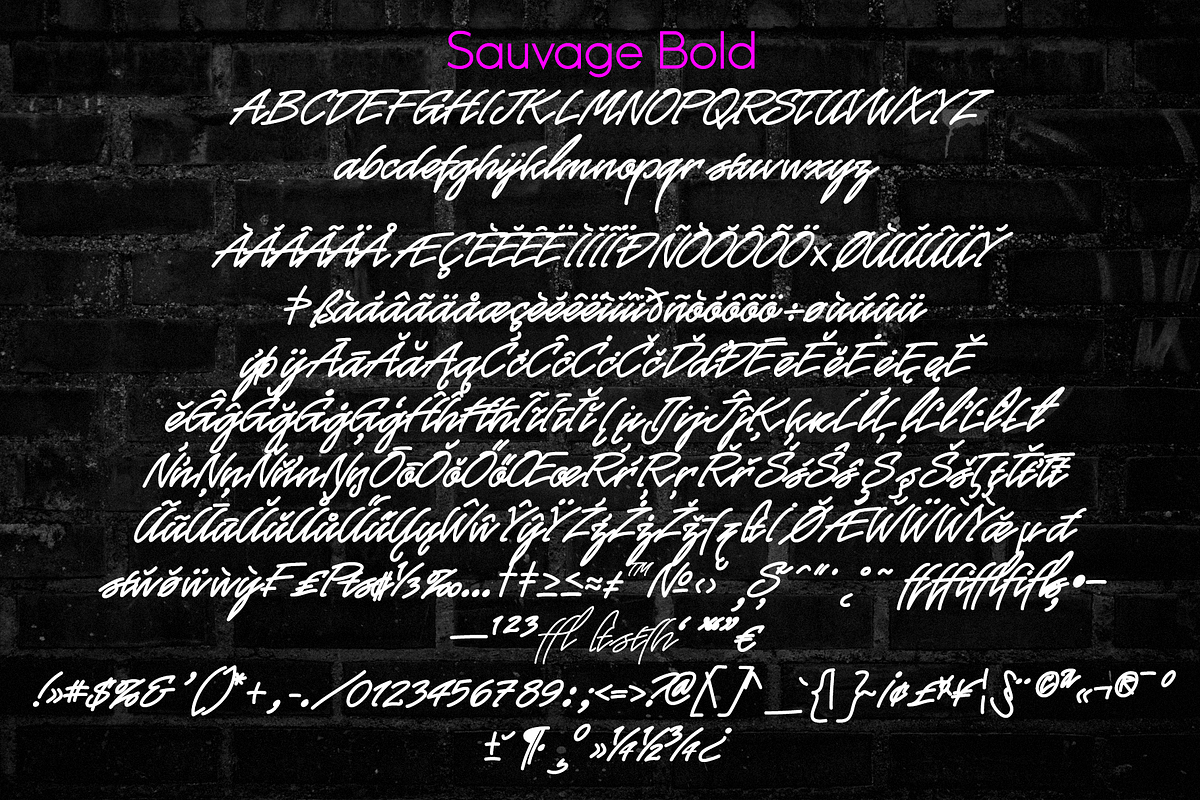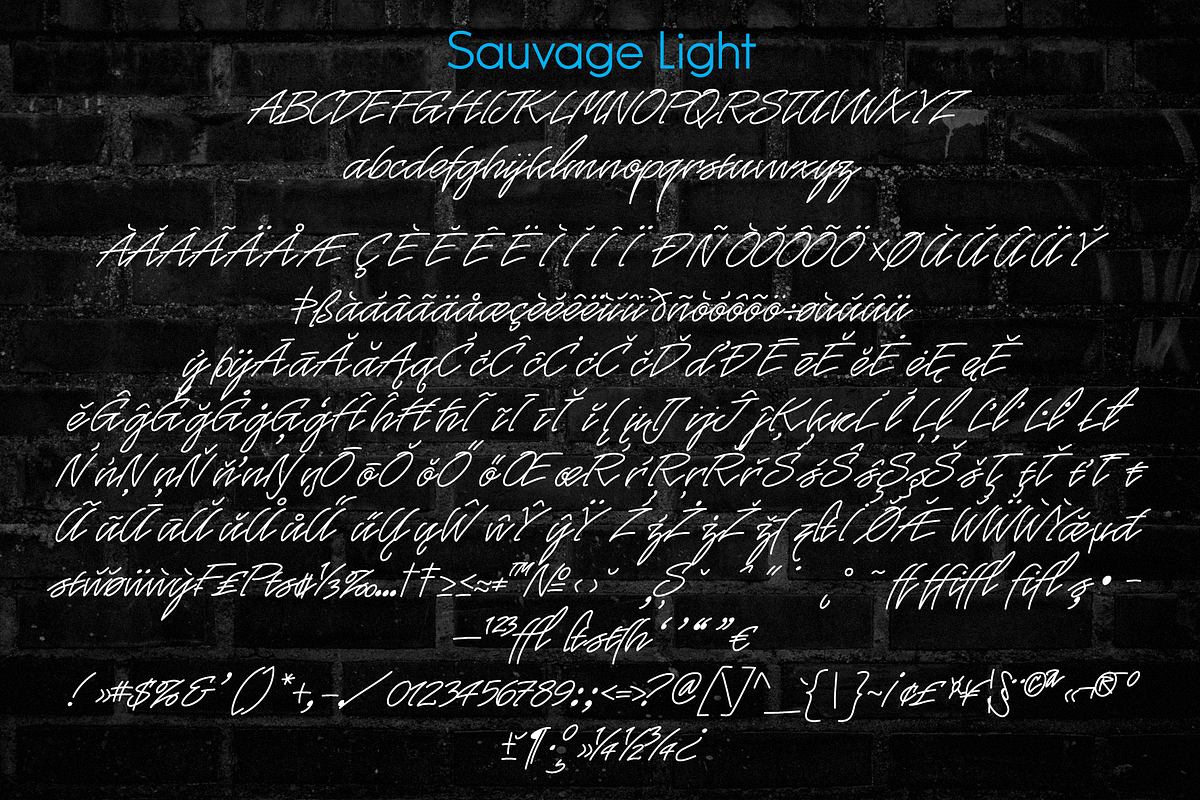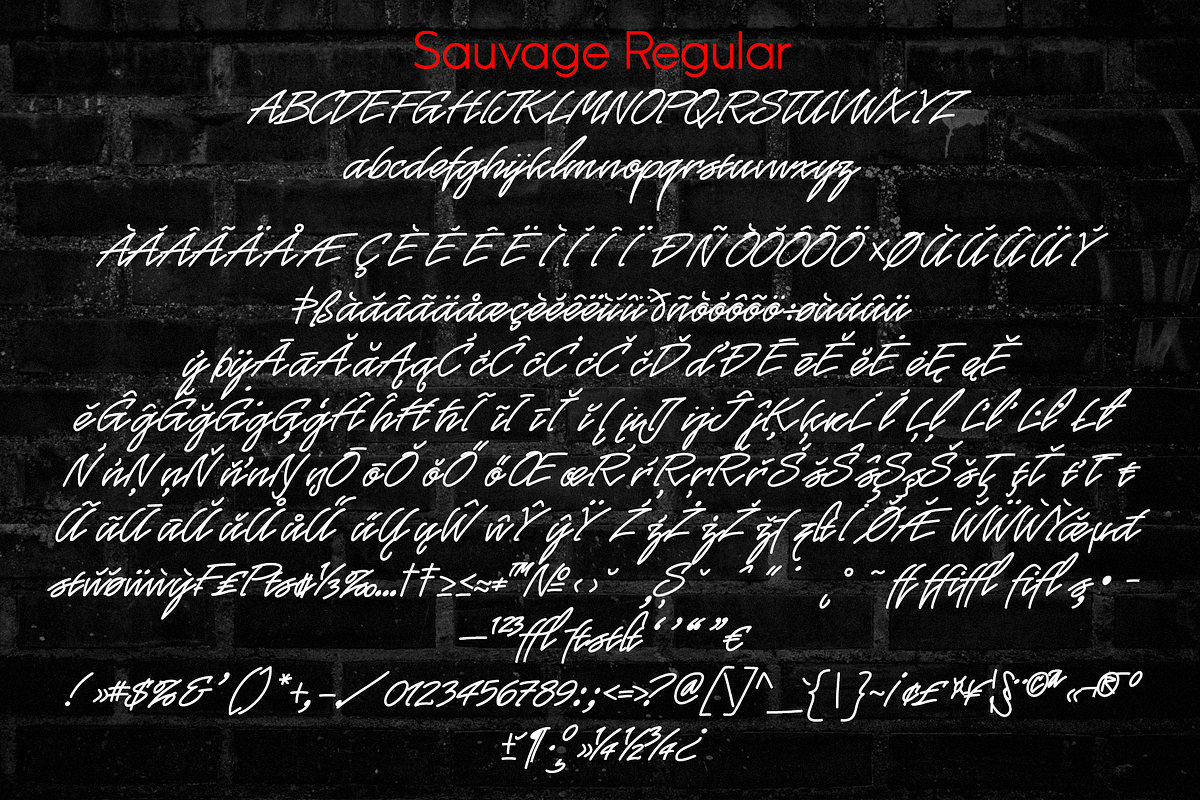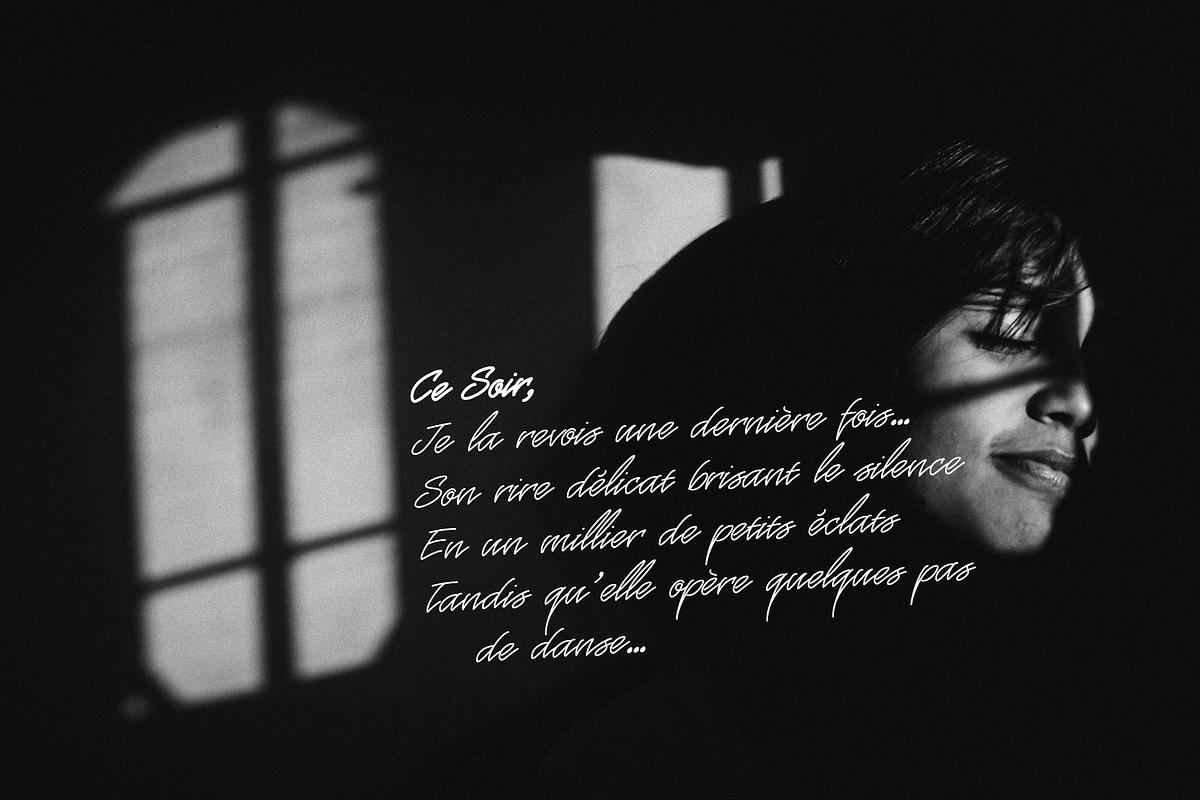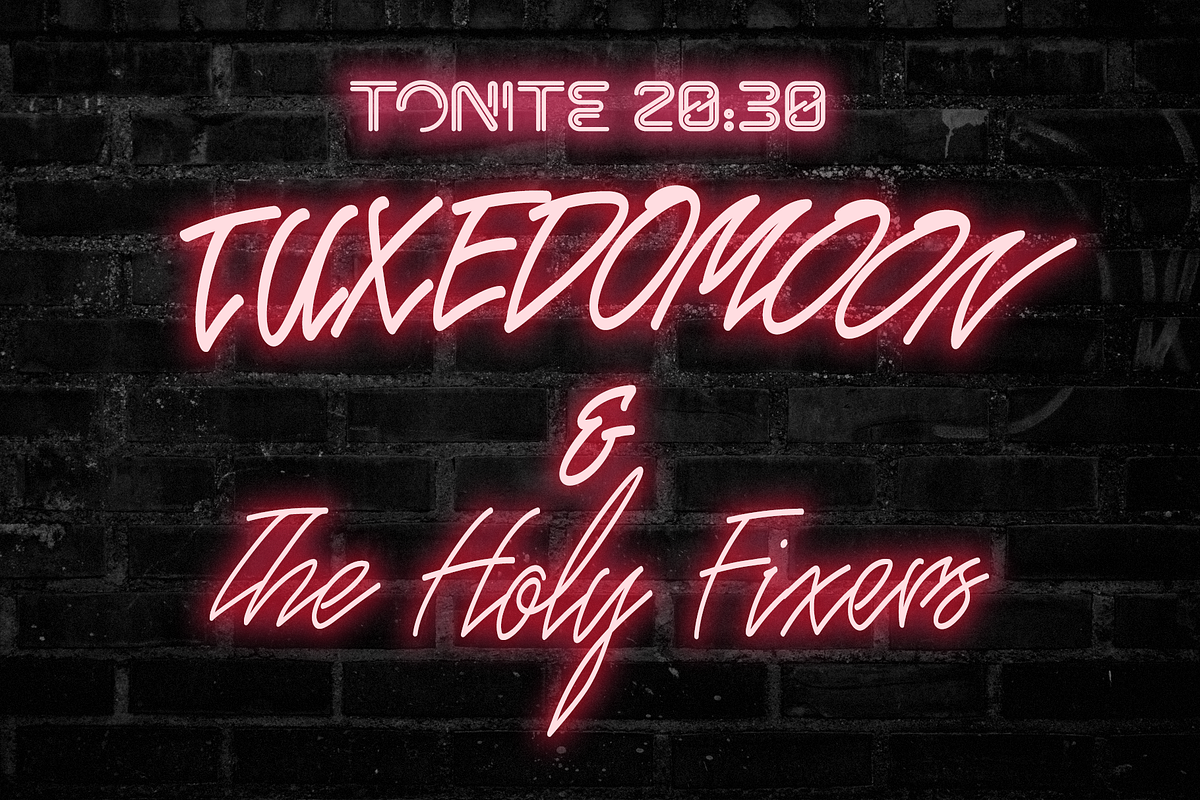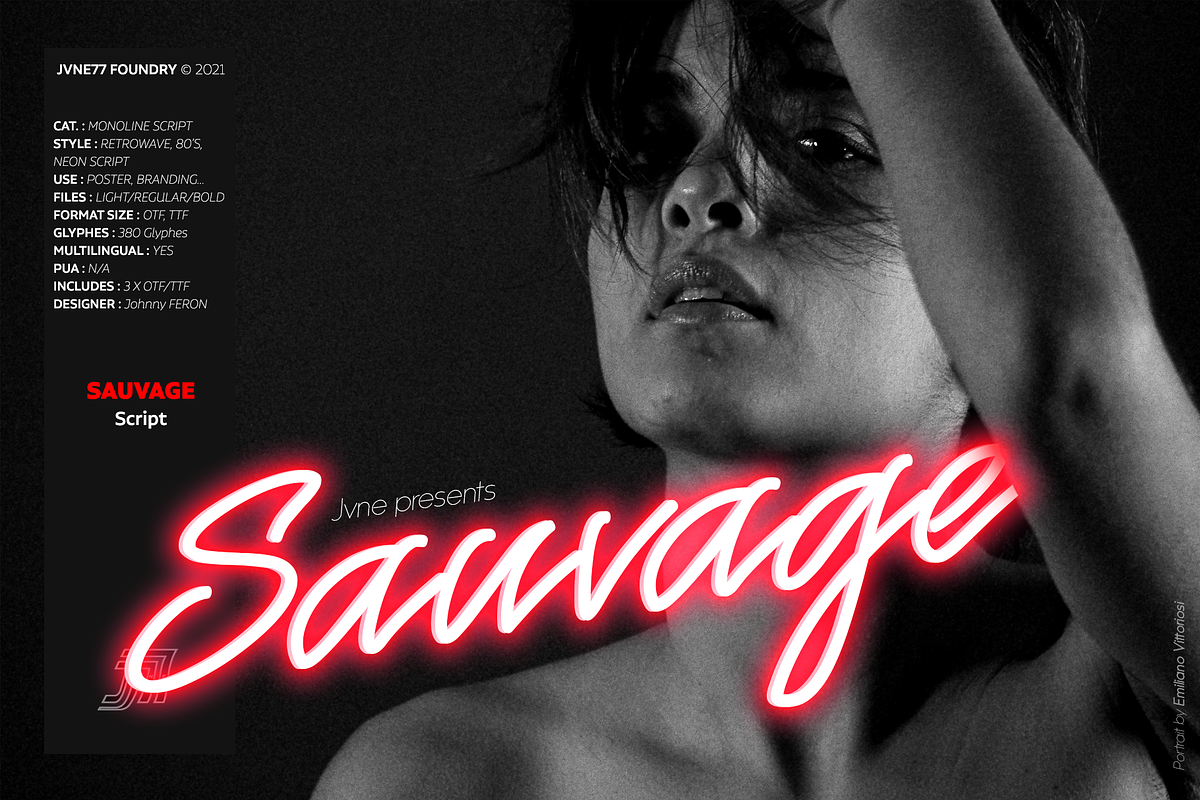
Sauvage - Monoline Script Family
A cool stylish monoline script font inspired by a classic ITC script - for neon effect use, card etc... Latin western support